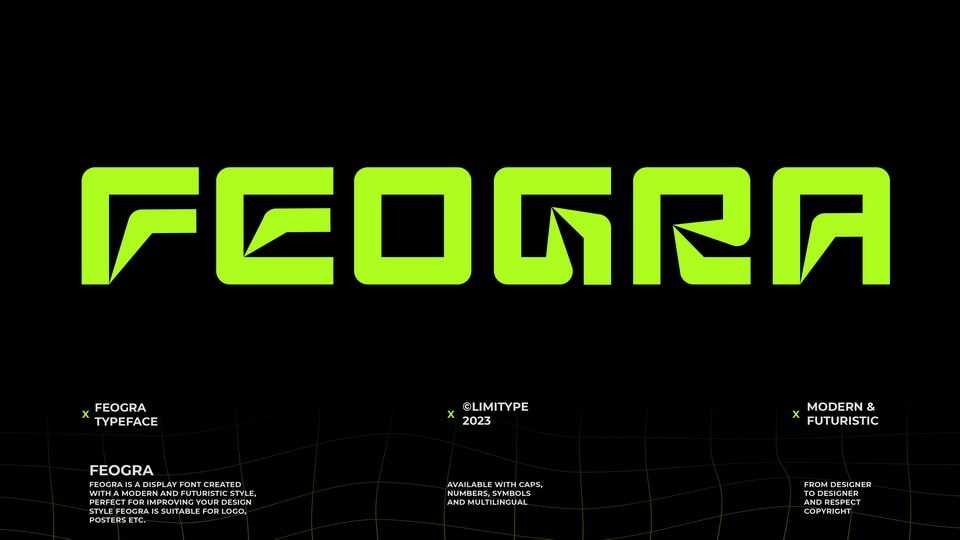
Download Feogra font, a display typeface inspired by the geometric shape of a robot. Designed in a modern style Feogra font looks futuristic and unique, suitable for your modern design and requires a bold and prominent typeface.